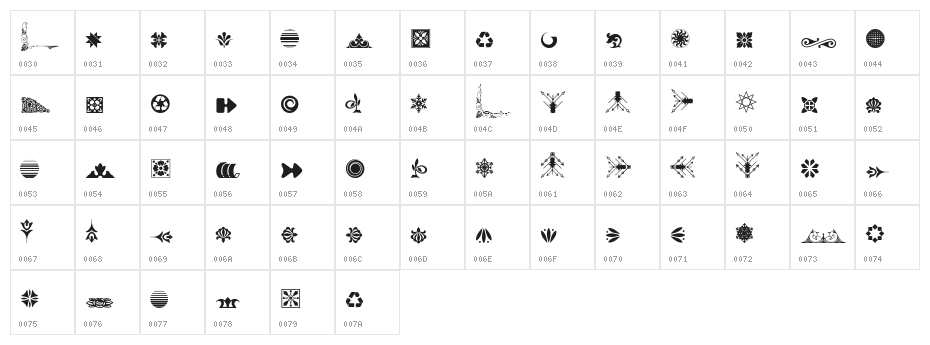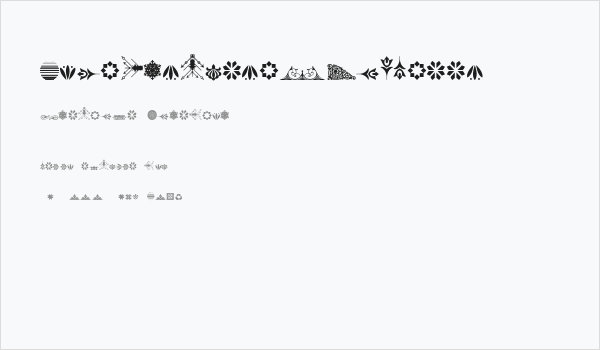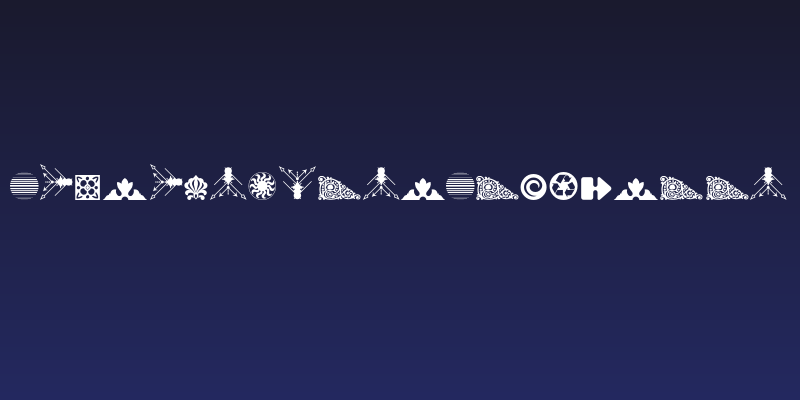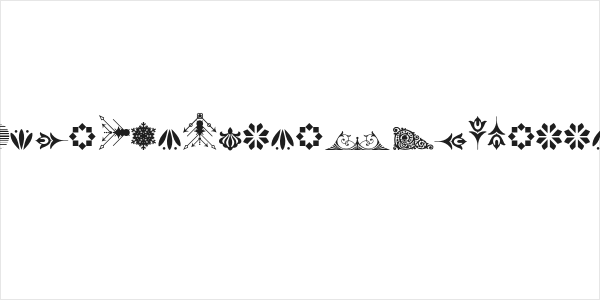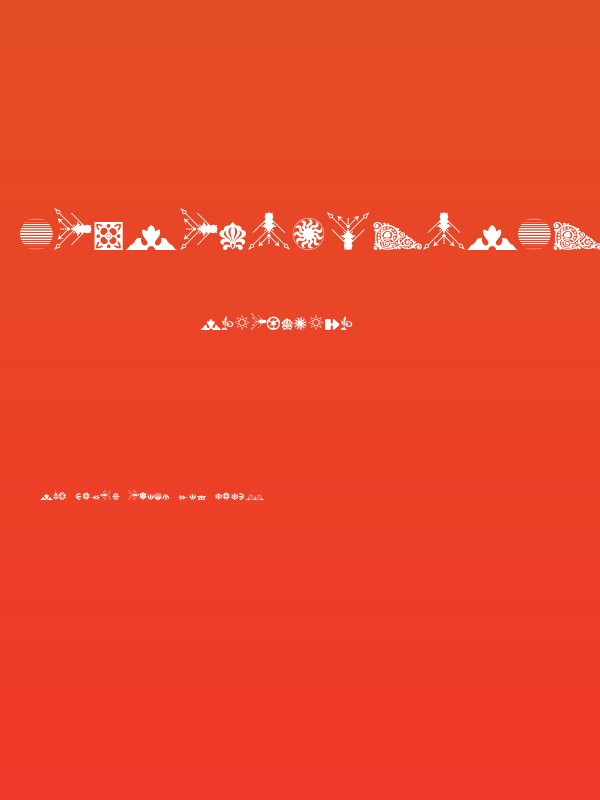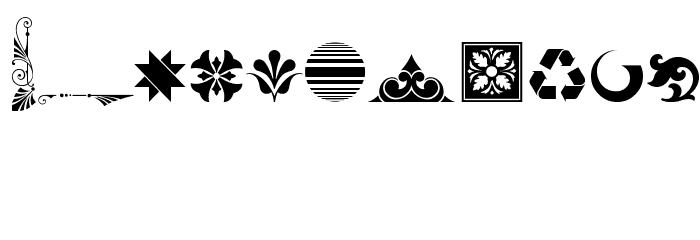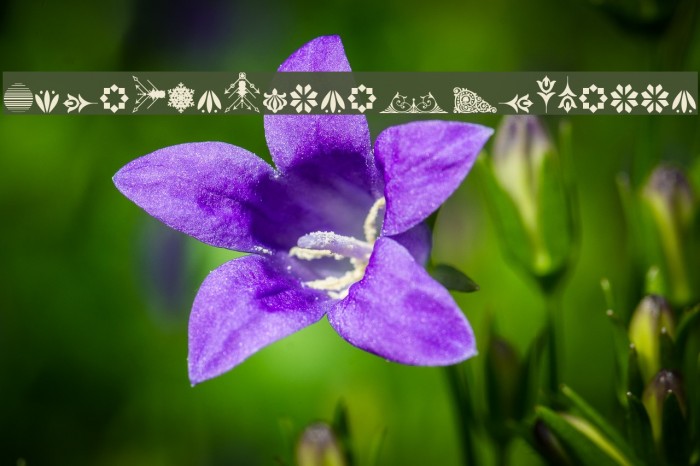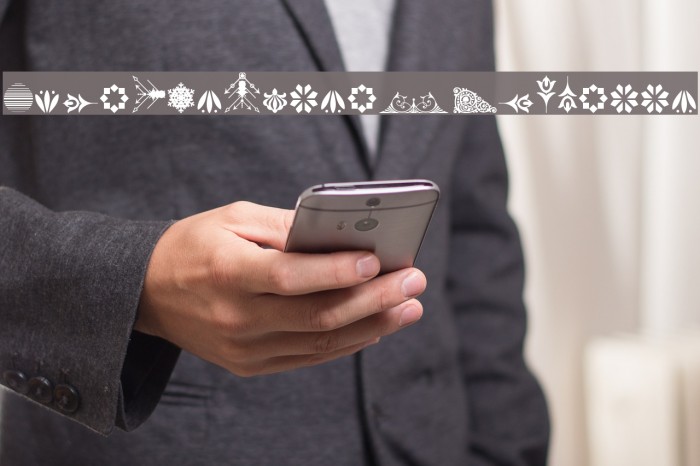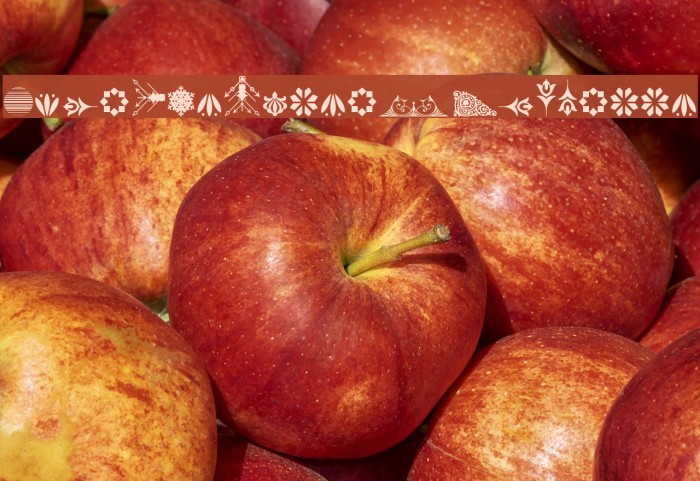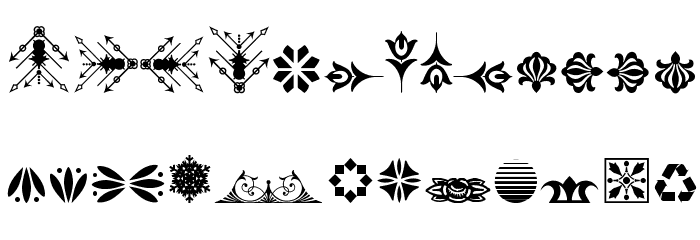
SoftOrnamentsEighteen Font
This collection features a diverse array of ornamental designs, each with intricate details and unique shapes. The elements range from floral motifs to geometric patterns, showcasing a blend of symmetry and artistic flair. These ornaments are ideal for adding decorative touches to various projects, offering a classic yet versatile aesthetic. The designs are bold and striking, with a consistent black fill that enhances their visual impact. The set includes a mix of circular, angular, and linear elements, providing a wide range of options for creative expression.
| Use Case | Logos, Decorative elements, Invitations |
| Proposed Projects | Ideal for use in decorative borders, invitations, packaging design, and digital artwork. |